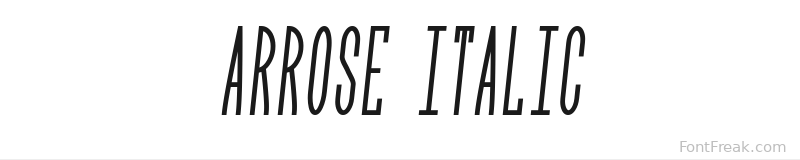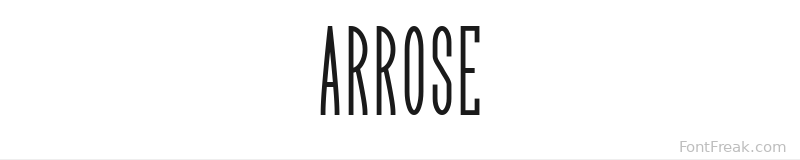
Arrose
Arrose Italic
Arrose is a striking display font designed by GGBot, categorized as a sans-serif typeface. Released in 2021 and updated in 2024, this font captures attention with its unique visual style. The Arrose font features a bold stroke weight that creates a strong presence while maintaining an elegant simplicity. The contrast between thick and thin lines adds a dynamic quality, enhancing its visual appeal. The spacing is well-balanced, ensuring readability while allowing for an engaging flow of text. Its decorative elements, though subtle, lend a sense of modern sophistication, making it suitable for various design projects.
This versatile typeface shines in a variety of contexts. It is particularly effective for wedding invitations, where its elegant yet contemporary look can elevate the overall aesthetic. Movie posters benefit from its boldness, drawing viewers in with commanding titles and taglines. Restaurant menus can utilize Arrose to create an inviting and stylish atmosphere, appealing to diners seeking a unique dining experience. Additionally, content creators can leverage this font for eye-catching social media graphics, ensuring their posts stand out amidst a crowded digital landscape.
What truly sets Arrose apart is its ability to blend simplicity with sophistication, making it a standout option for any creative endeavor. Whether used in print or digital formats, this font captures attention and leaves a lasting impression, proving to be an invaluable asset in any designer's toolkit.